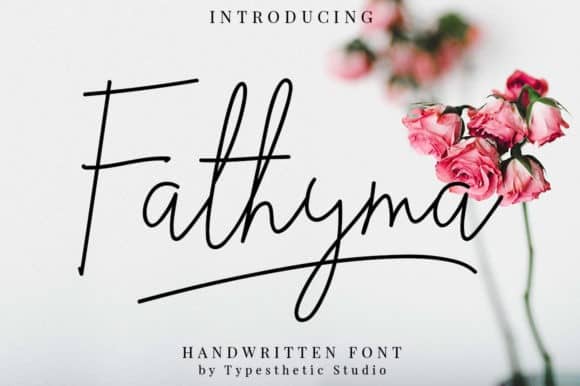
Fathyma Handwritten Font
Fathyma Font is gentle signature hand drawn typeface. with signature style taste, includes full set of gorgeous uppercase and lowercase letters, numerals, punctuation, ligatures and alternate characters, giving realistic hand-lettered style.
Fathyma Font is very suitable as to make a design choice for Blogging, Social Media, Branding, Wedding Invites and Cards.